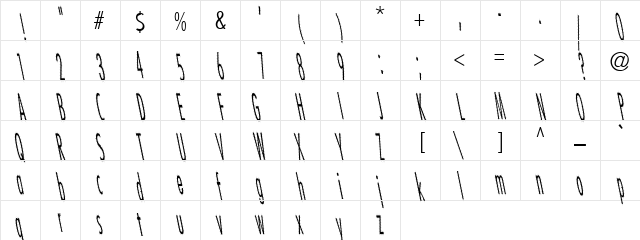
Froxy Kips Regular
Design Context for Froxy Kips Typeface
Froxy Kips offers clean, dependable letterforms without strong stylistic allegiance, making it a practical choice for designers who need flexibility.